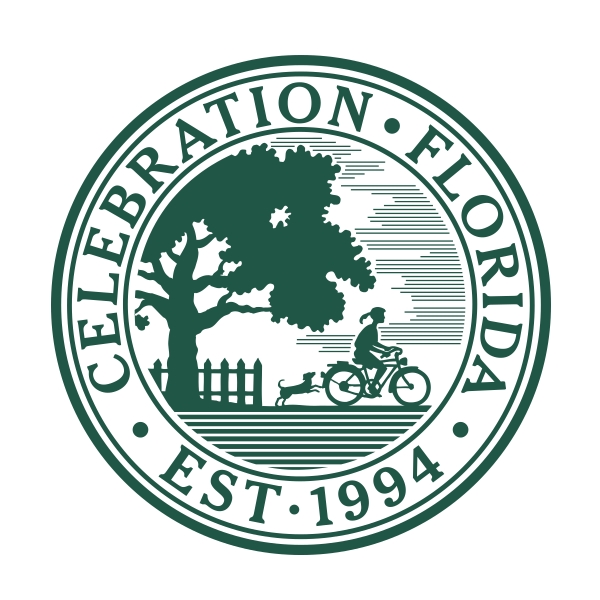
Celebration Font
Fonts in UseCelebration is a planned community located in Florida, known for its charming small-town feel, picturesque streets, and community events. It was originally developed by The Walt Disney Company in the mid-1990s.
It is likely that the logo of Celebration Town utilizes the ITC Cheltenham Std Bold font, a display typeface originally created in 1896 with an updated version designed by Tony Stan in 1975.